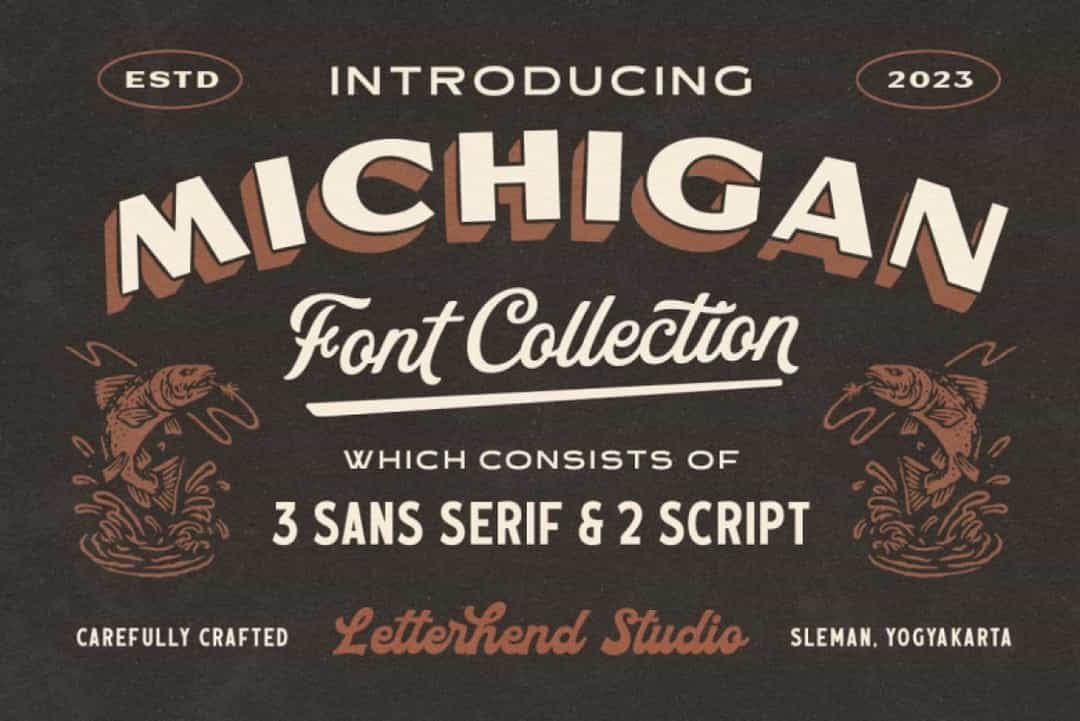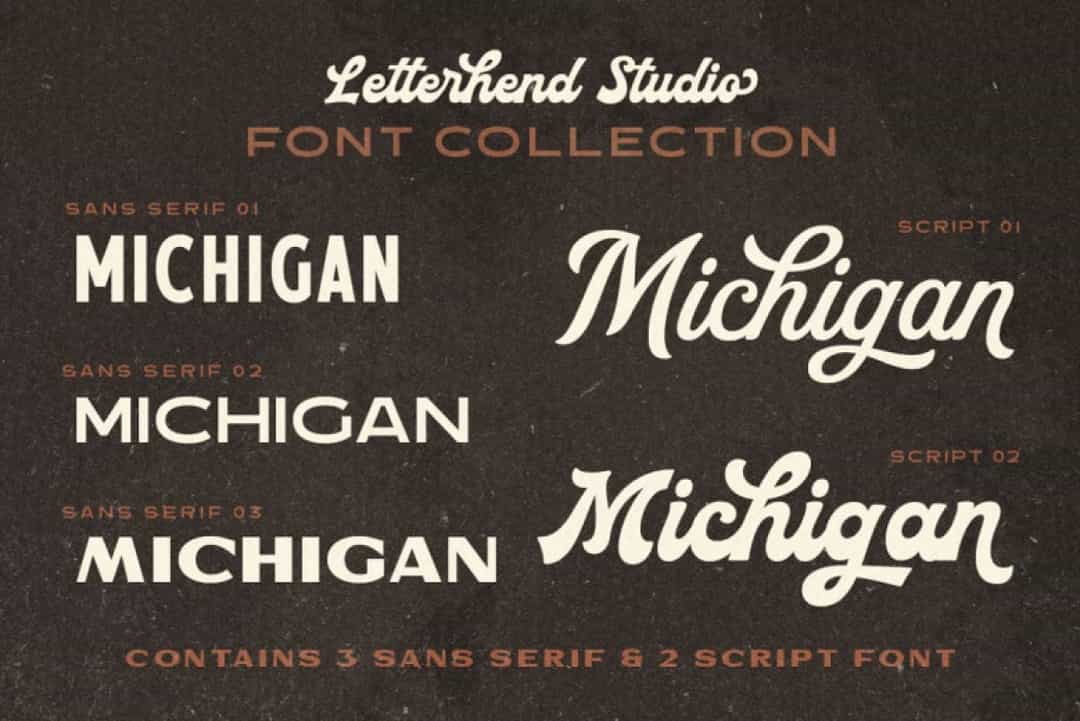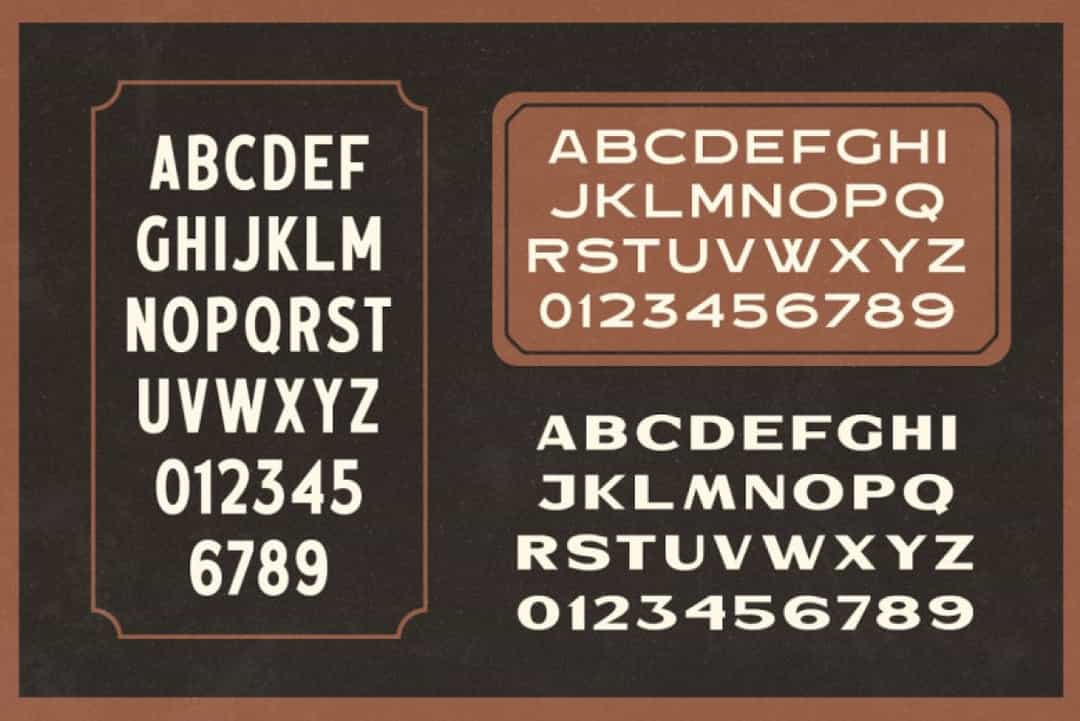
Discover MIchigan Font Collection, part of the Sans Serif Script collection—a versatile and unique font perfect for adding a personal touch to your projects. Download it for free and enjoy crafting designs with style, from invitations to social media posts. This font is available exclusively for personal use, giving you the freedom to create without limits. Unlock your creativity with MIchigan Font Collection today!
Reduce font confusion and become acquainted with Michigan, your design hero! The collection contains five fonts for one purchase – three sans and two script styles each offering their own distinct character – making decision making simpler than ever!